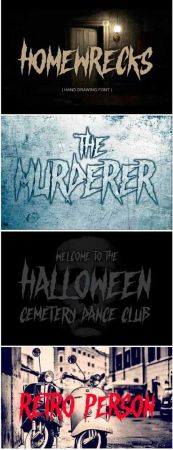
DesignOptimal - Homewrecks Font
DesignOptimal.com - Homewrecks Font
Homewrecks is a heavy-metal inspired blackletter font that will turn any horror project into a standout!